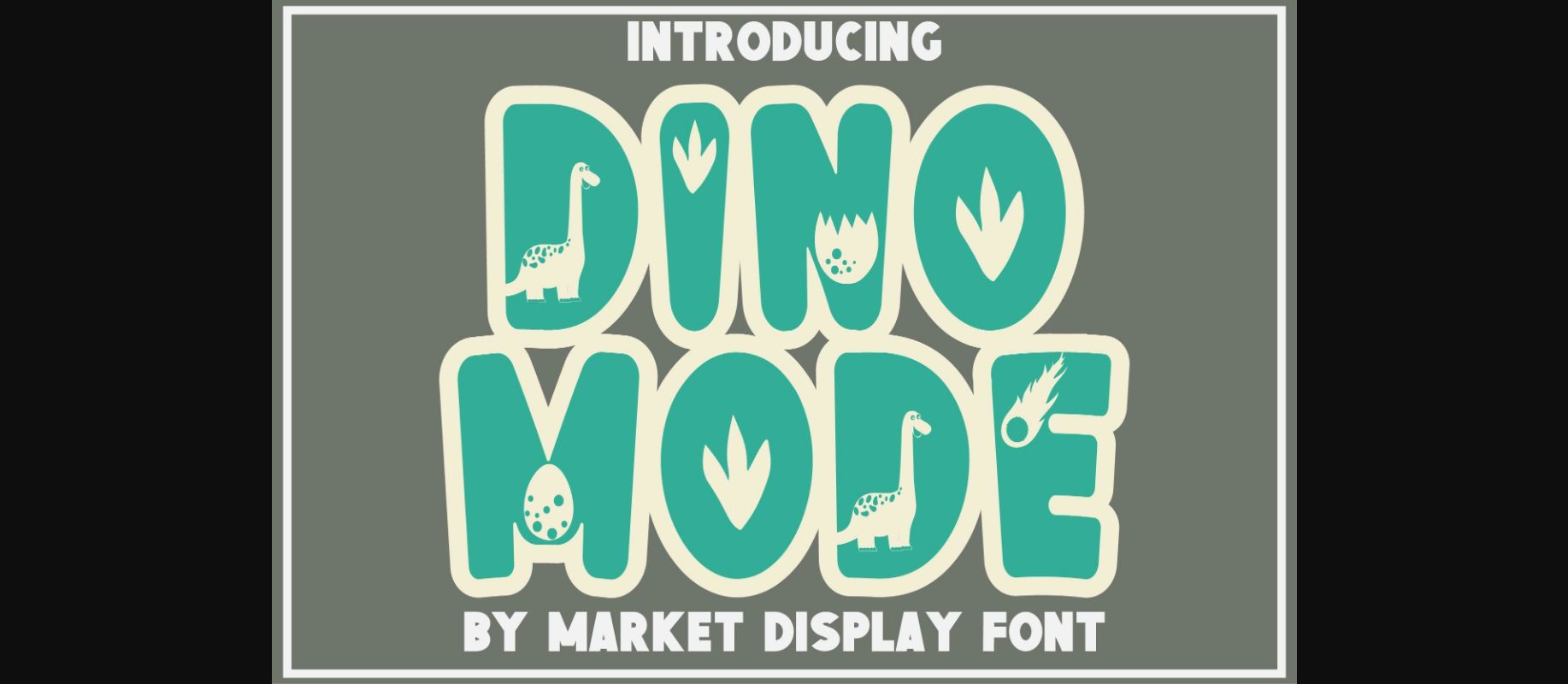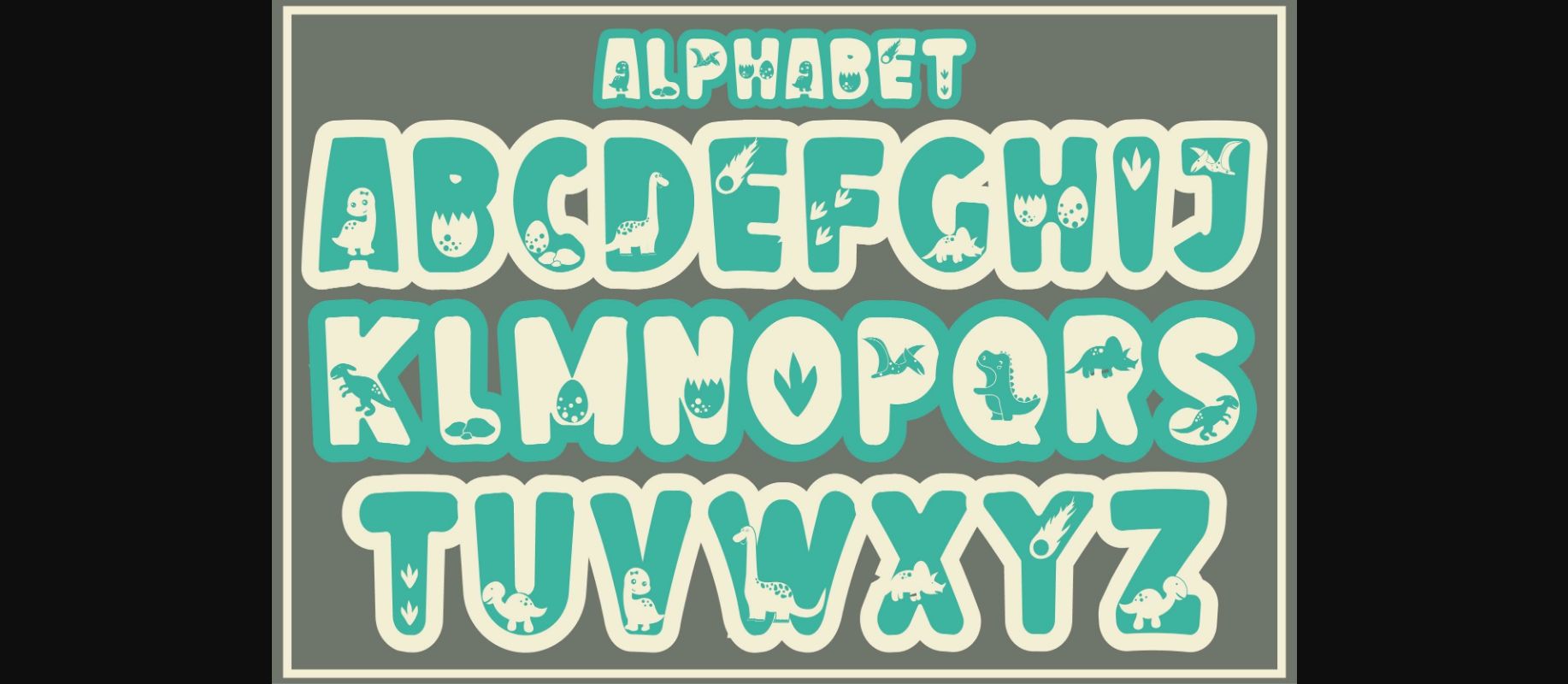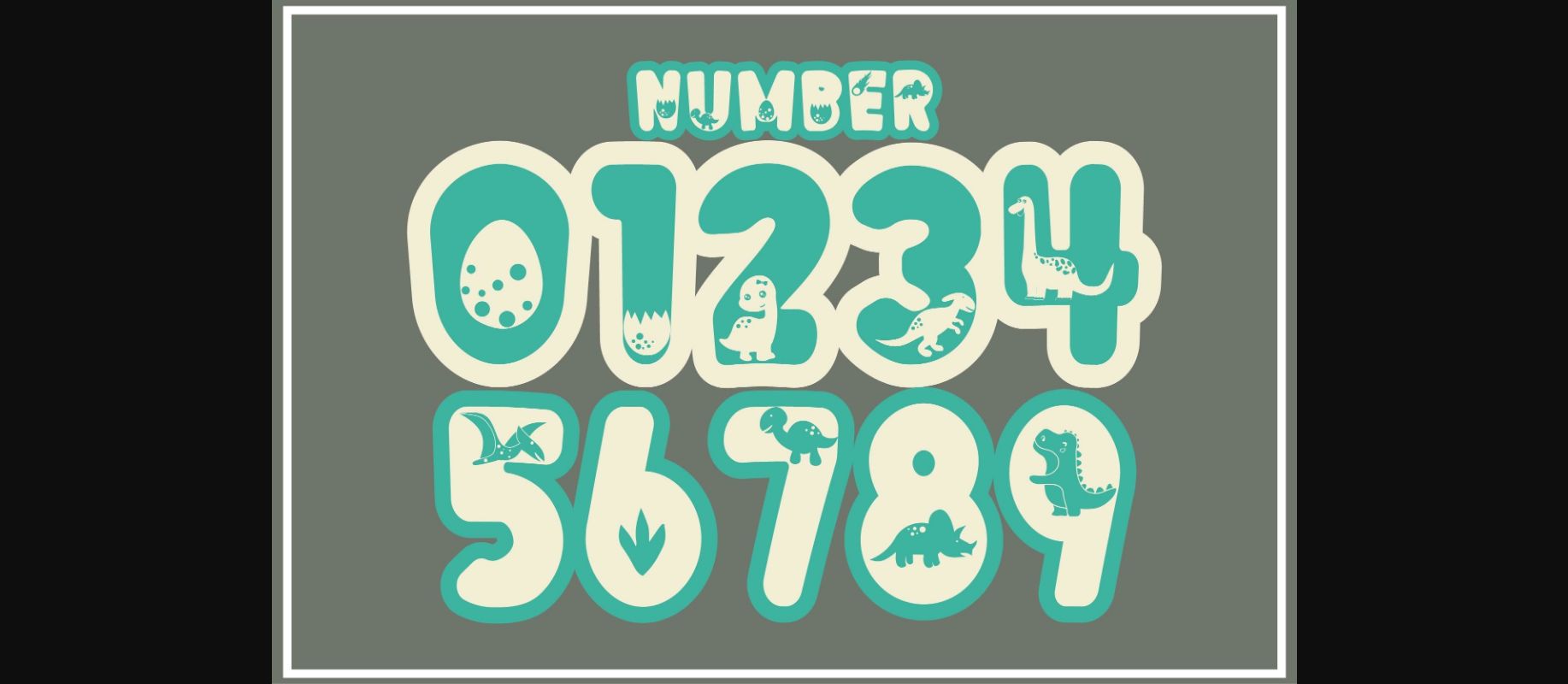
Dino Mode is a captivating decorative font with a dinosaur motive. Create outstanding typography designs with this dinosaur-themed font! It is perfect for kids’ t-shirt designs, paper crafts, web graphics, and more.